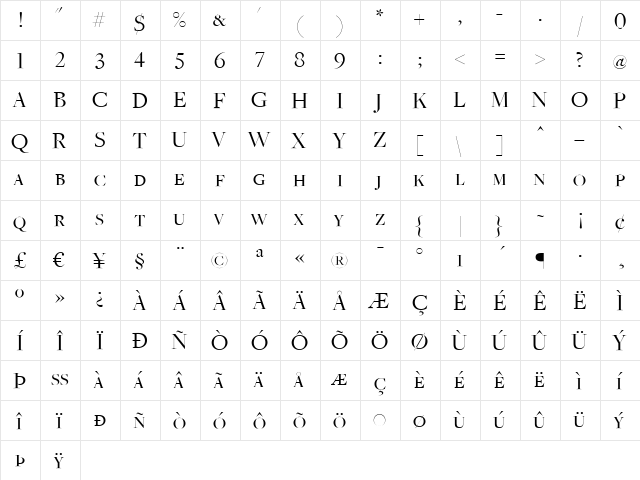
FreightBigBookSC Regular Font Preview
FreightBigBookSC Regular
FreightBigBookSC Regular Font Details
| Foundry | Joshua Darden & Phil's Fonts, Inc |
| Designer | Joshua Darden |
Design Context for FreightBigBookSC Typeface
FreightBigBookSC offers clean, dependable letterforms without strong stylistic allegiance, making it a practical choice for designers who need flexibility.